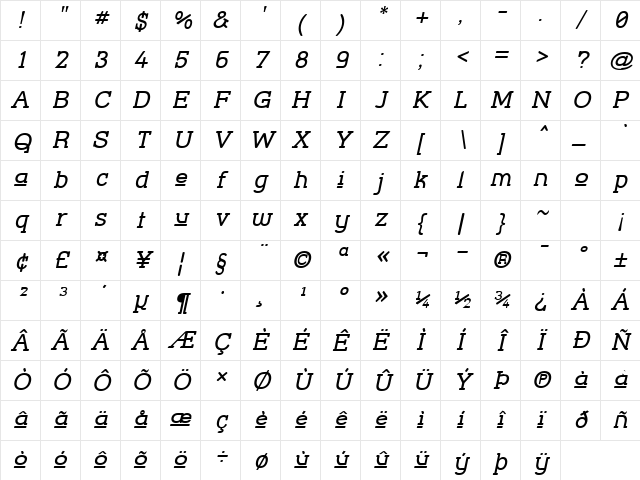
Complete Street Corner Slab Upper Obl Regular glyph index. Displaying only characters natively supported by Street Corner Slab Upper Obl Regular font.
Street Corner Slab Upper Obl features prominent, blocky serifs that give it a confident, grounded presence - equally at home in editorial settings and bold branding work.